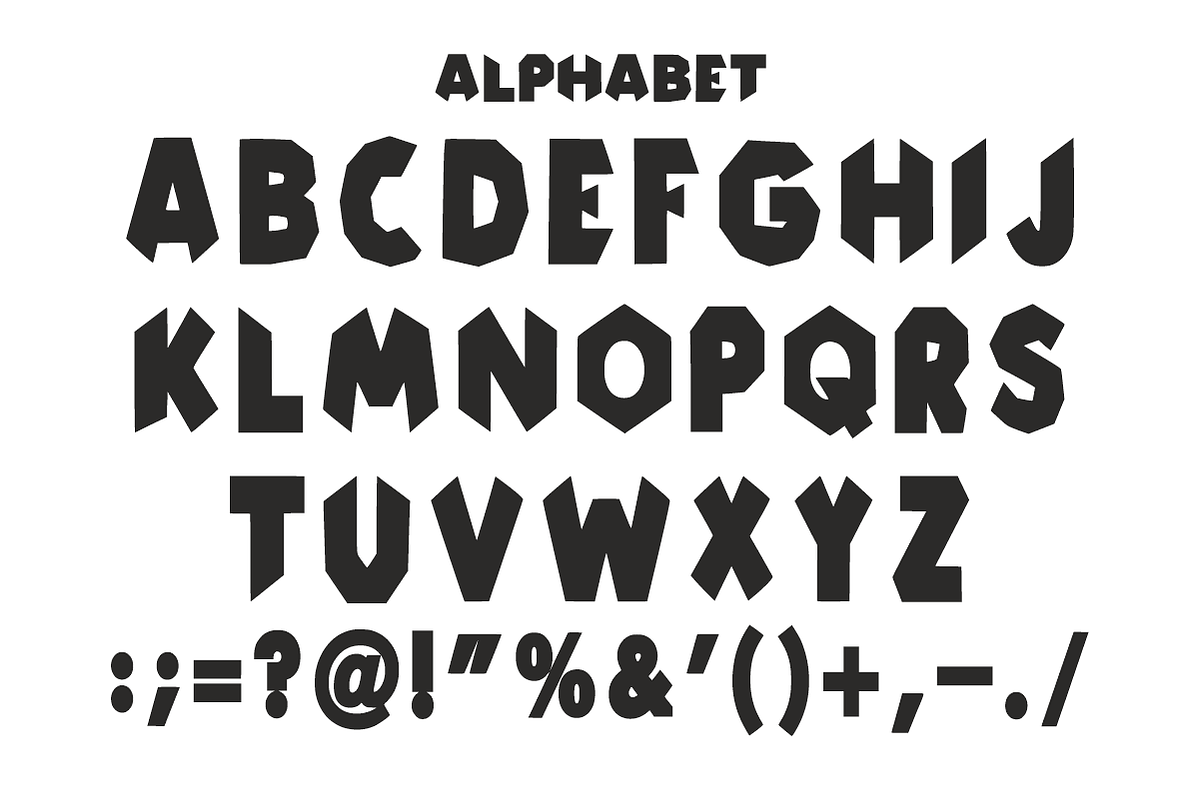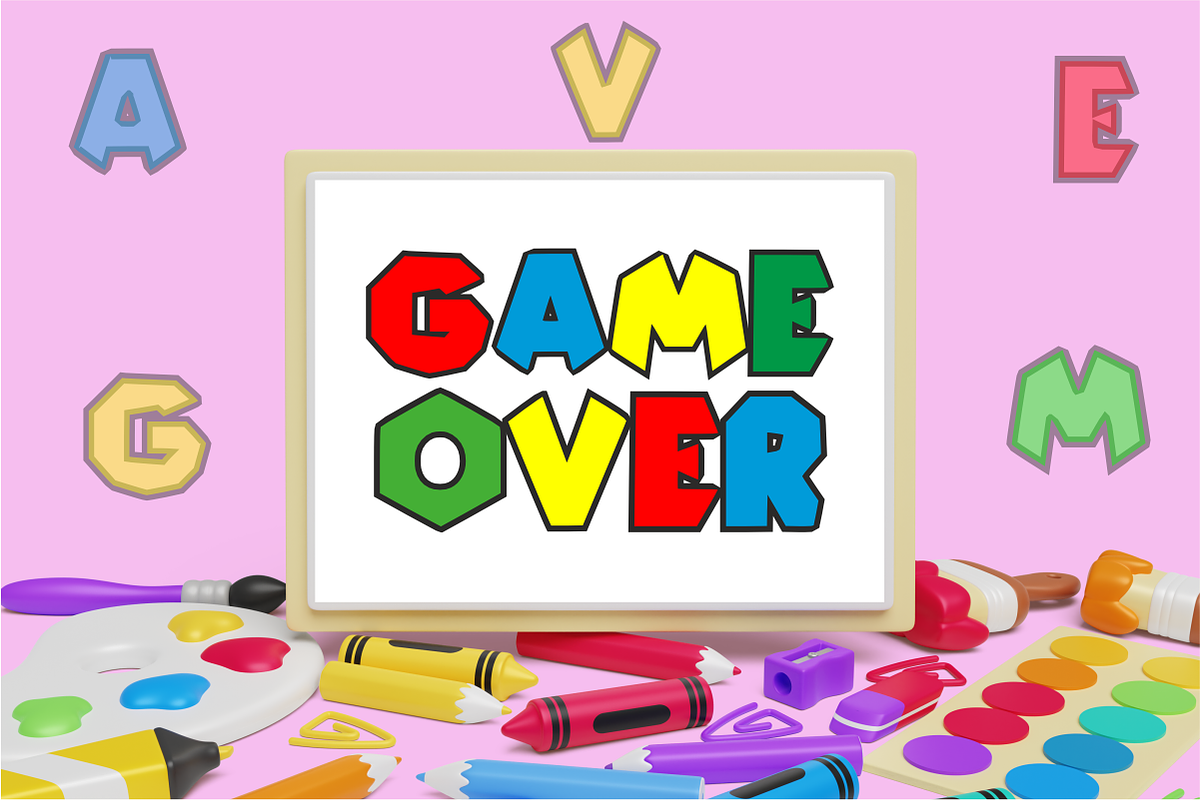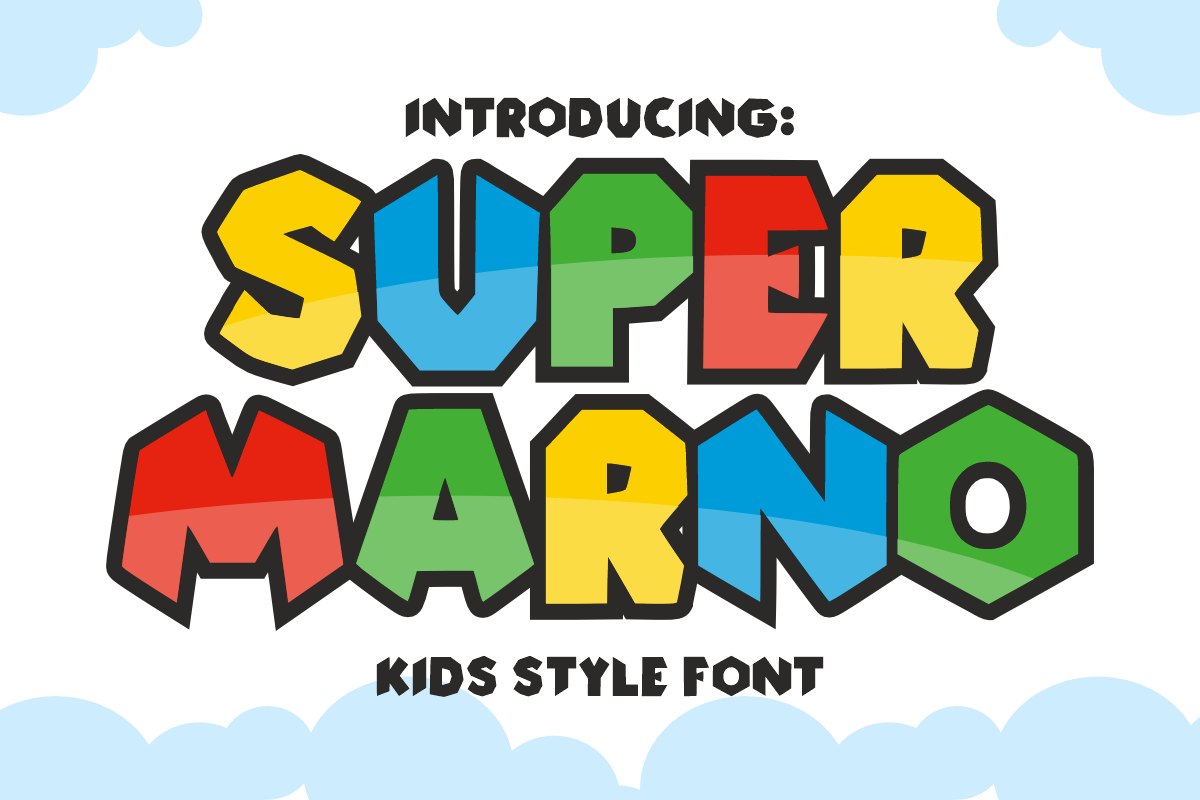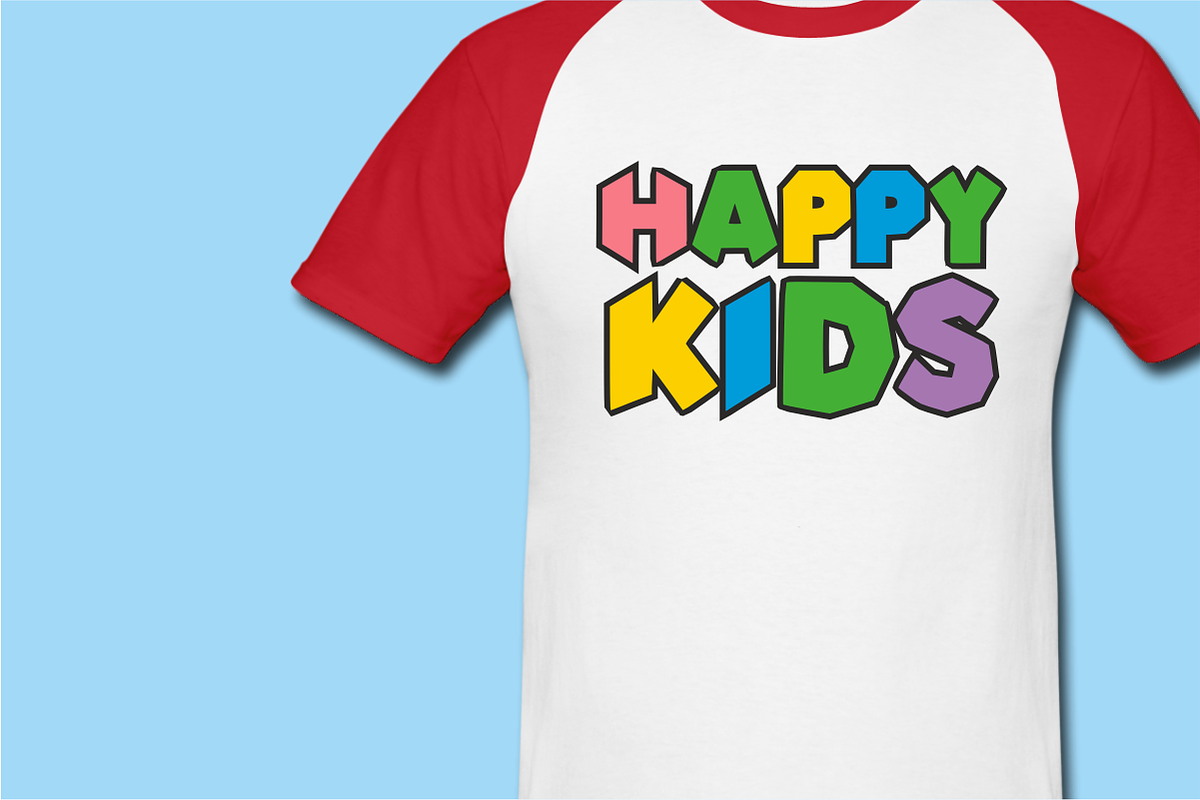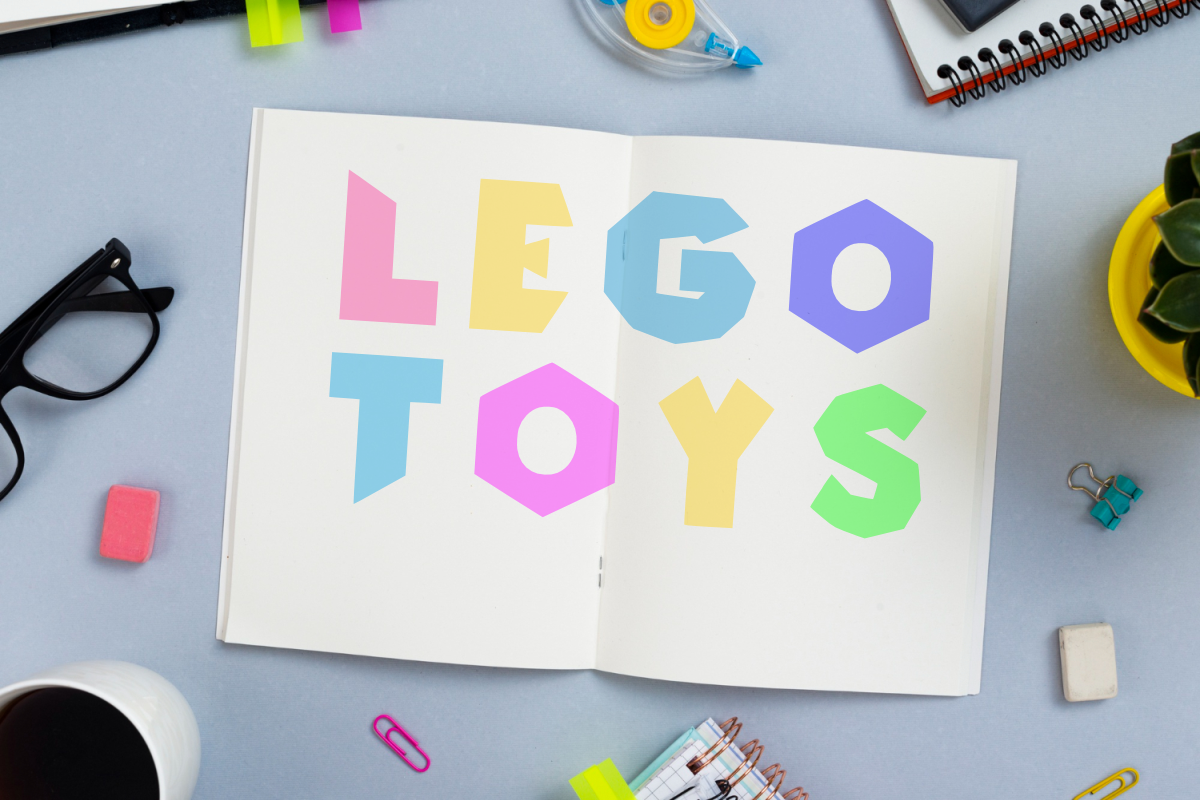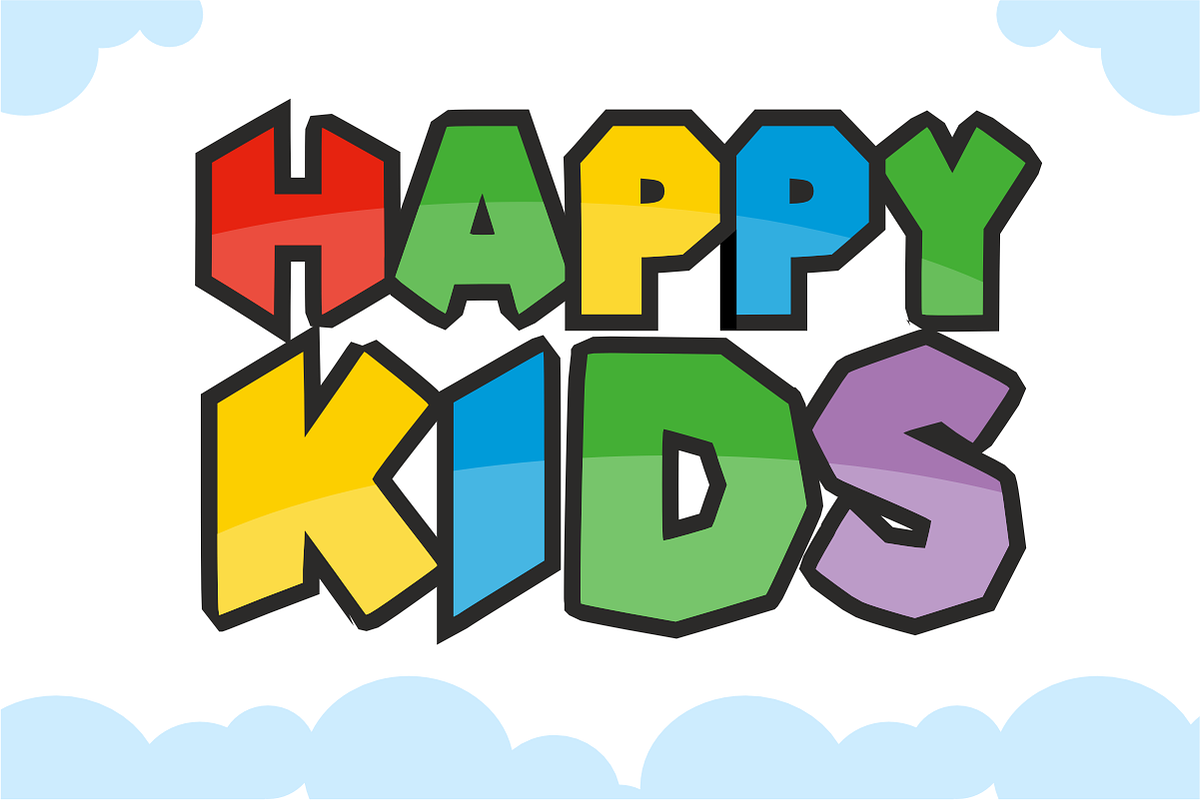
Super Marno X - Game Display Font
Super Marno X is an action-packed, chunky display font featuring bold geometric angles and a playful retro gaming vibe. Inspired by arcade adventures, this blocky cartoon font brings high-energy fun to headlines, party themes, and kids' branding. Every character is cleanly vectorized to guarantee smooth, effortless cutting on machines like Cricut and Silhouette.
Uppercase Character Set
Numbers & Basic Punctuation